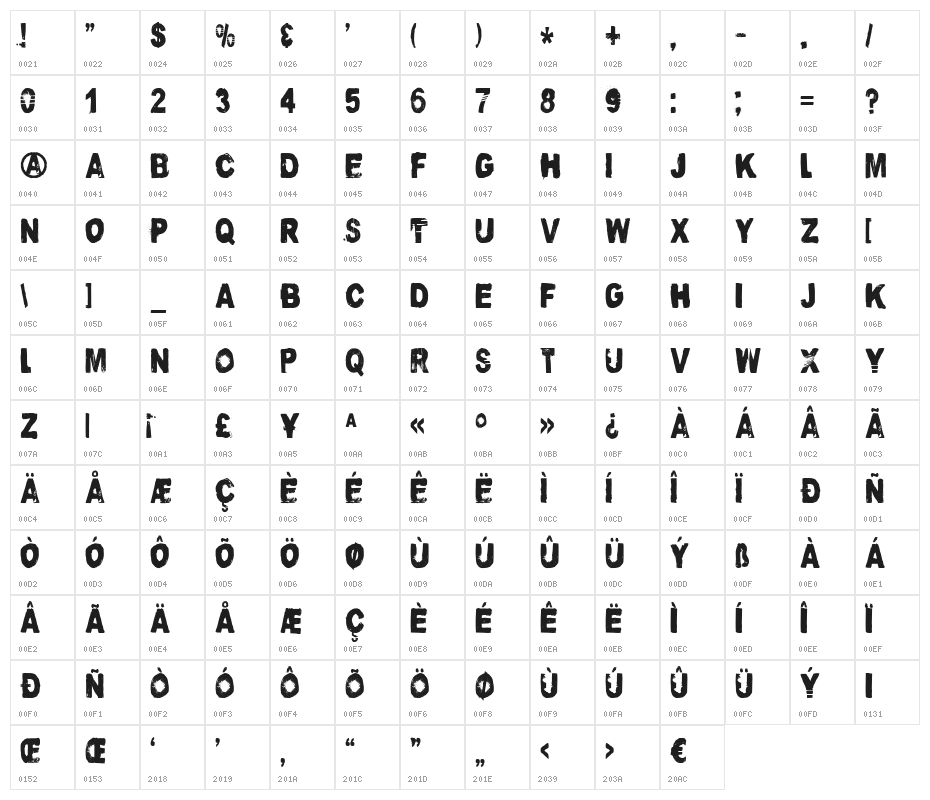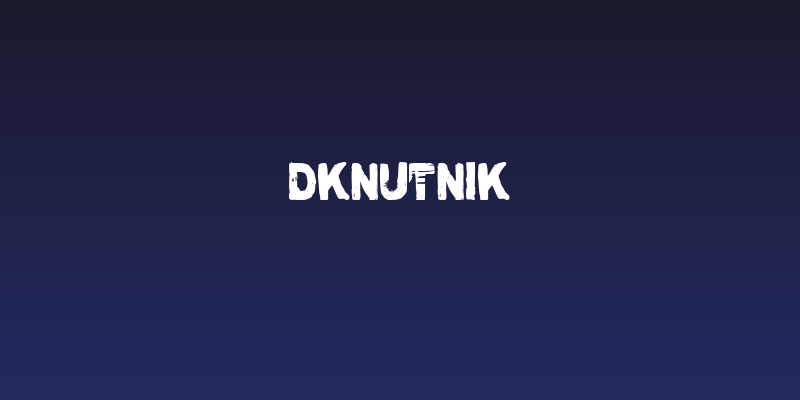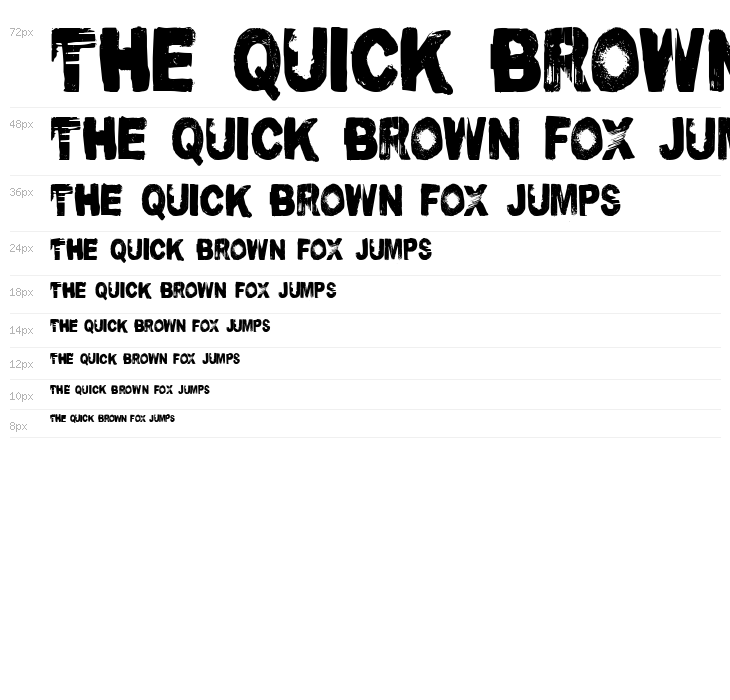
DKNutnik Font
✎ Distorted Eroded
| Stile generale | Grunge, Edgy, Bold |
| Caso d'uso | Headlines, Posters, Branding |
| Progetti proposti | Perfect for album covers, posters, streetwear branding, and any project needing a bold, edgy look. |